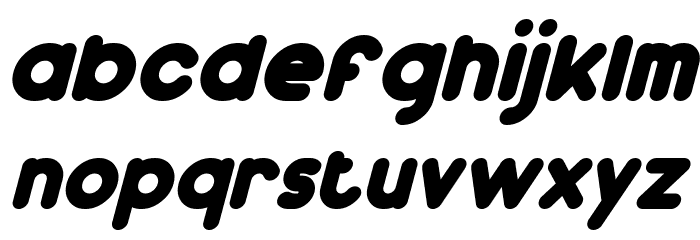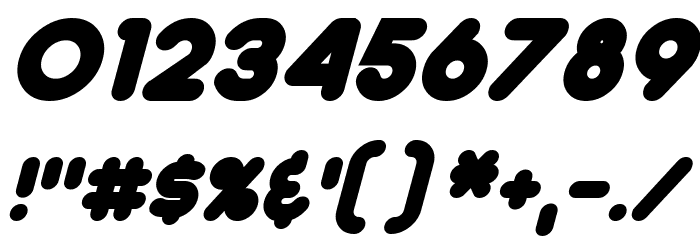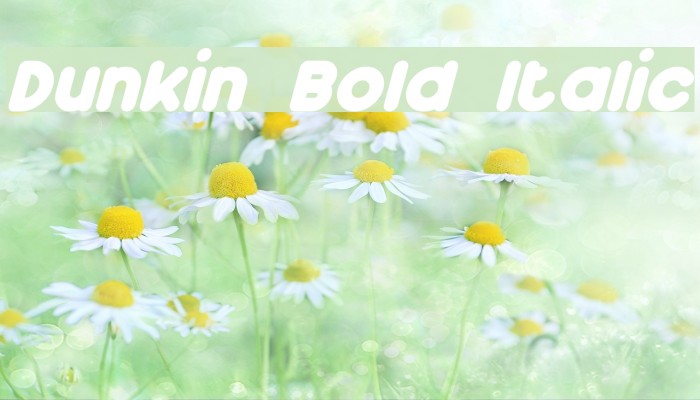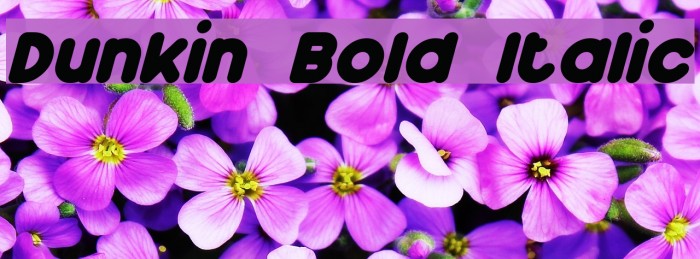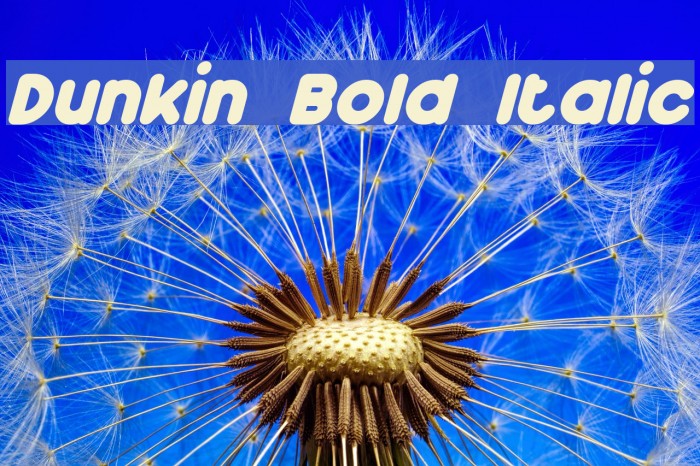
Dunkin Bold Italic Font
This font features bold, rounded characters with a playful and friendly appearance. The letters are italicized, giving a sense of motion and energy. The strokes are thick and consistent, providing a strong visual impact. The overall design is modern and approachable, making it suitable for a variety of applications. The characters are well-spaced, ensuring readability even at smaller sizes. The numerals and special characters maintain the same bold and rounded style, ensuring consistency across all text elements.
A bold, rounded, and italicized font with a playful and modern style.
- Proposed Projects: Ideal for branding, advertising, packaging, and any project requiring a friendly and energetic typeface.
- Use Case: Headlines, Logos, Branding